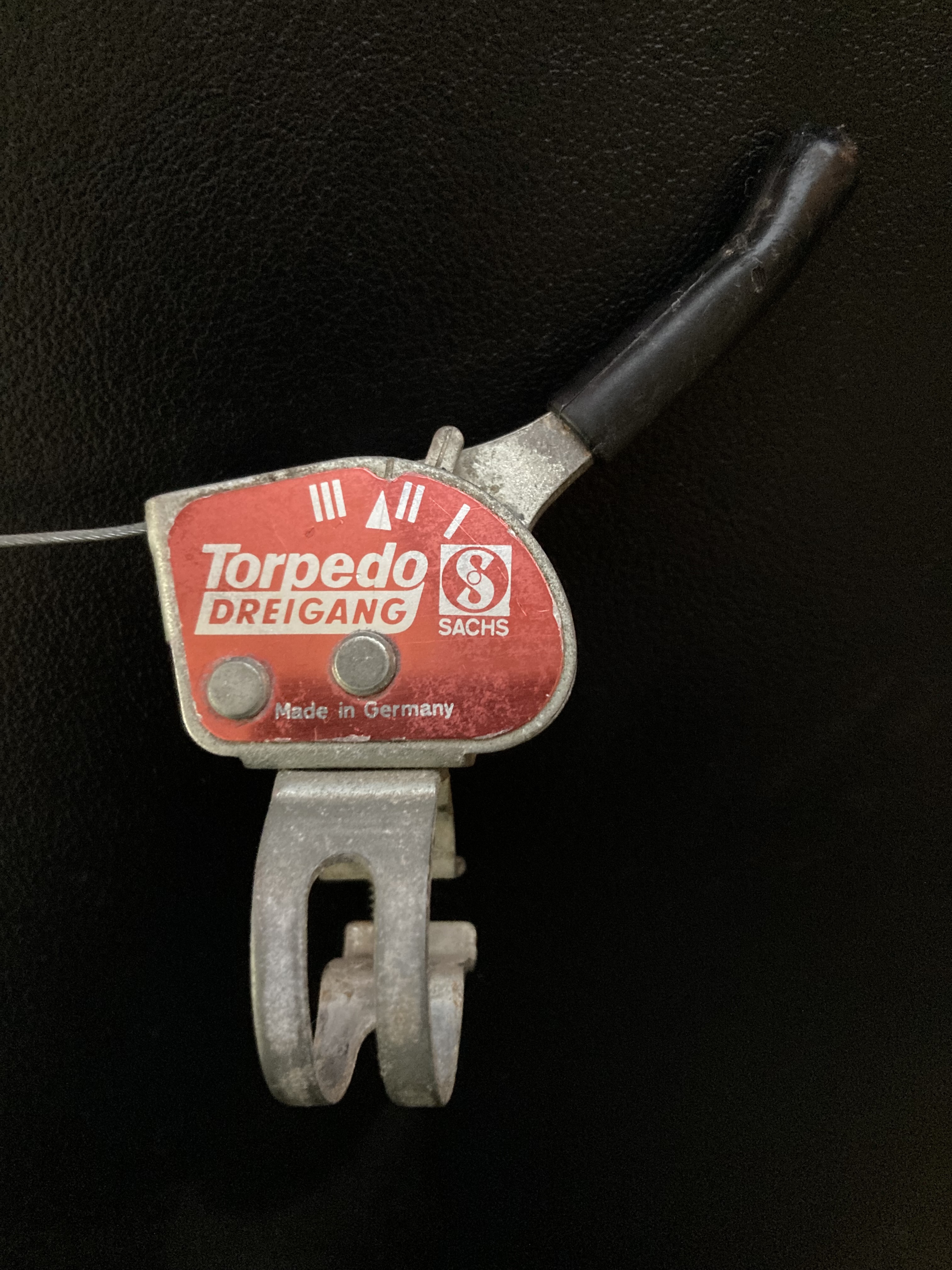
Sachs Torpedo Dreigang
Sachs Torpedo "Dreigang" 3-speed trigger shifter, made by Fichtel & Sachs AG in Germany. The bold slanted "Torpedo" logotype sits above a reversed-out condensed "DREIGANG", paired with the circular Sachs "S" monogram — all printed on a red badge with gear positions (I · II · III). Handlebar-mounted lever for the Torpedo 3-speed internal hub. Found on a Puch touring bike, roughly 1961–1975.